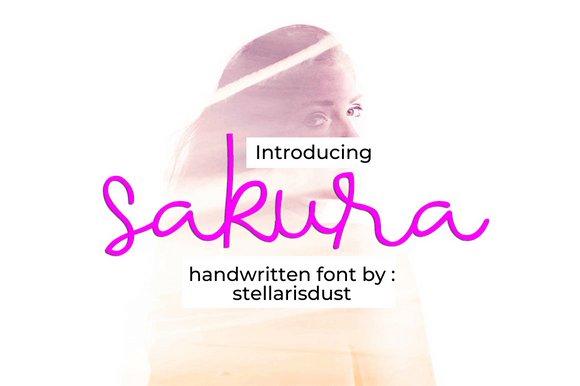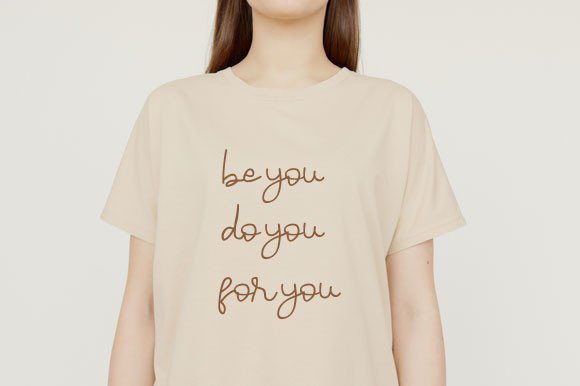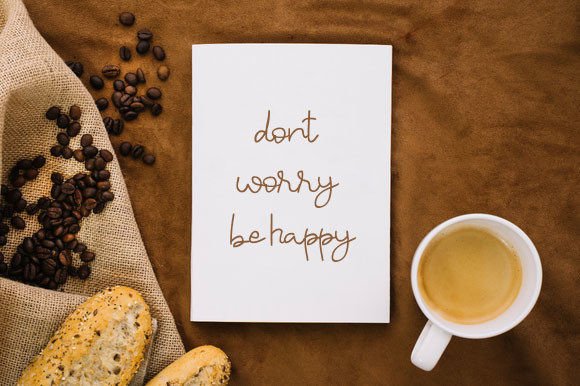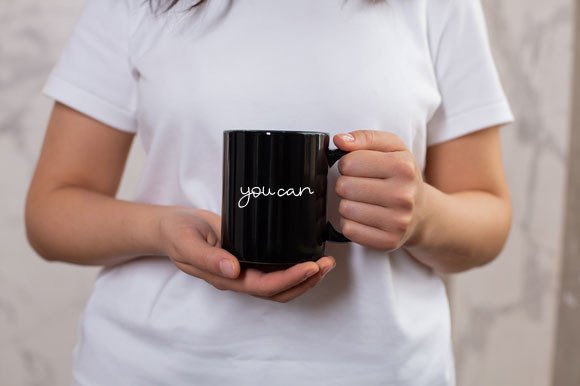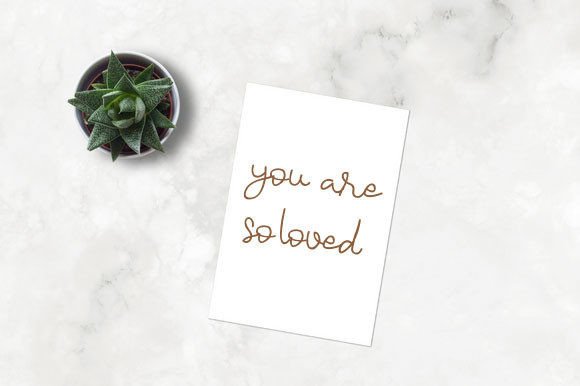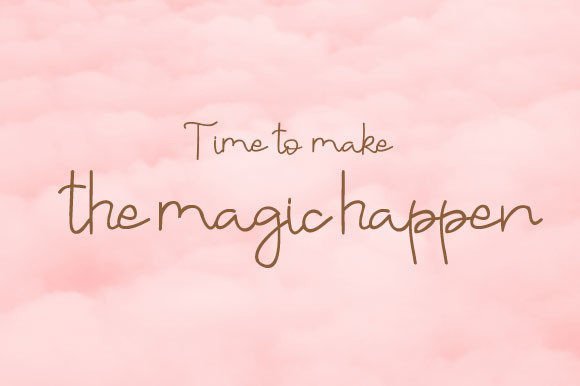
Sakura
About Sakura
Sakura is a fun and dainty handwritten font. This original look will appeal to a wide range of crafty ideas, from letterheads and titles to stationery.